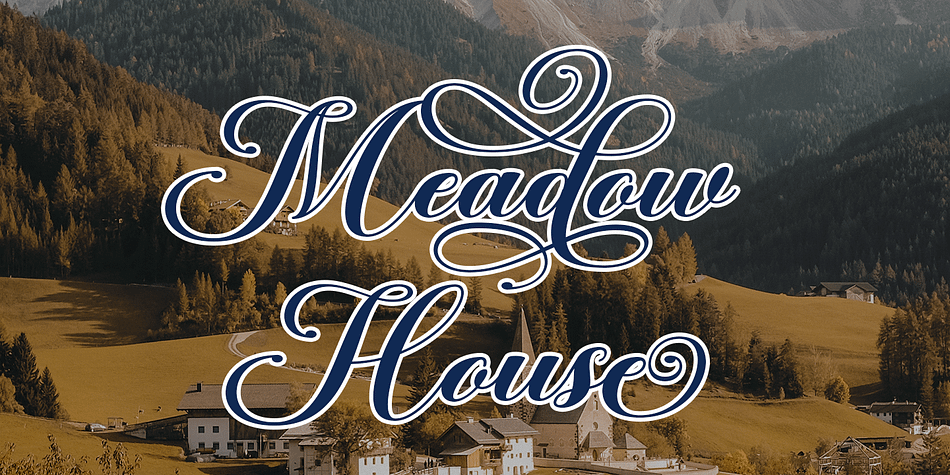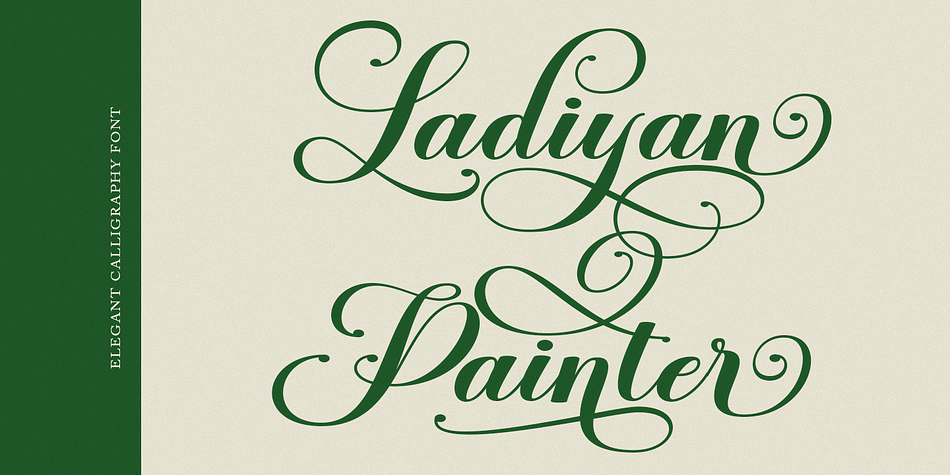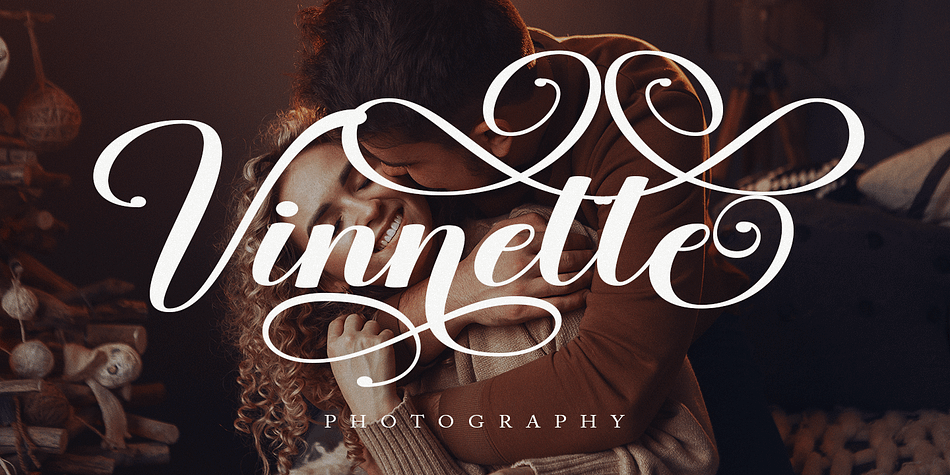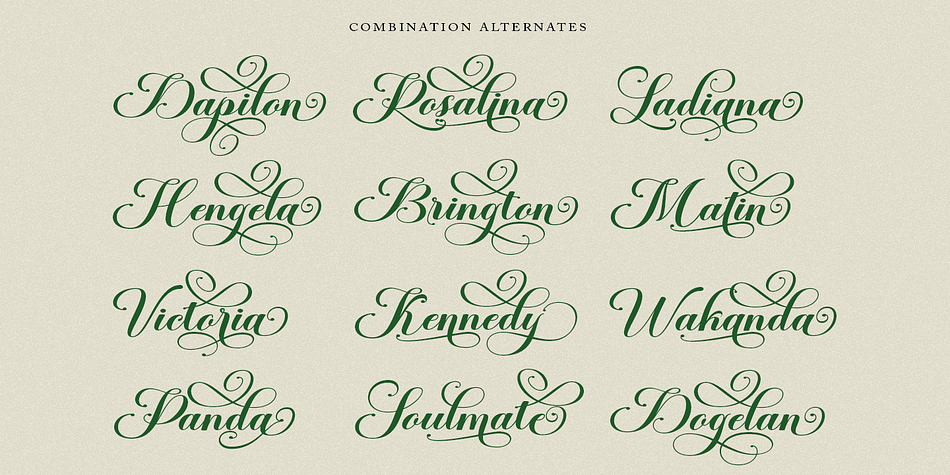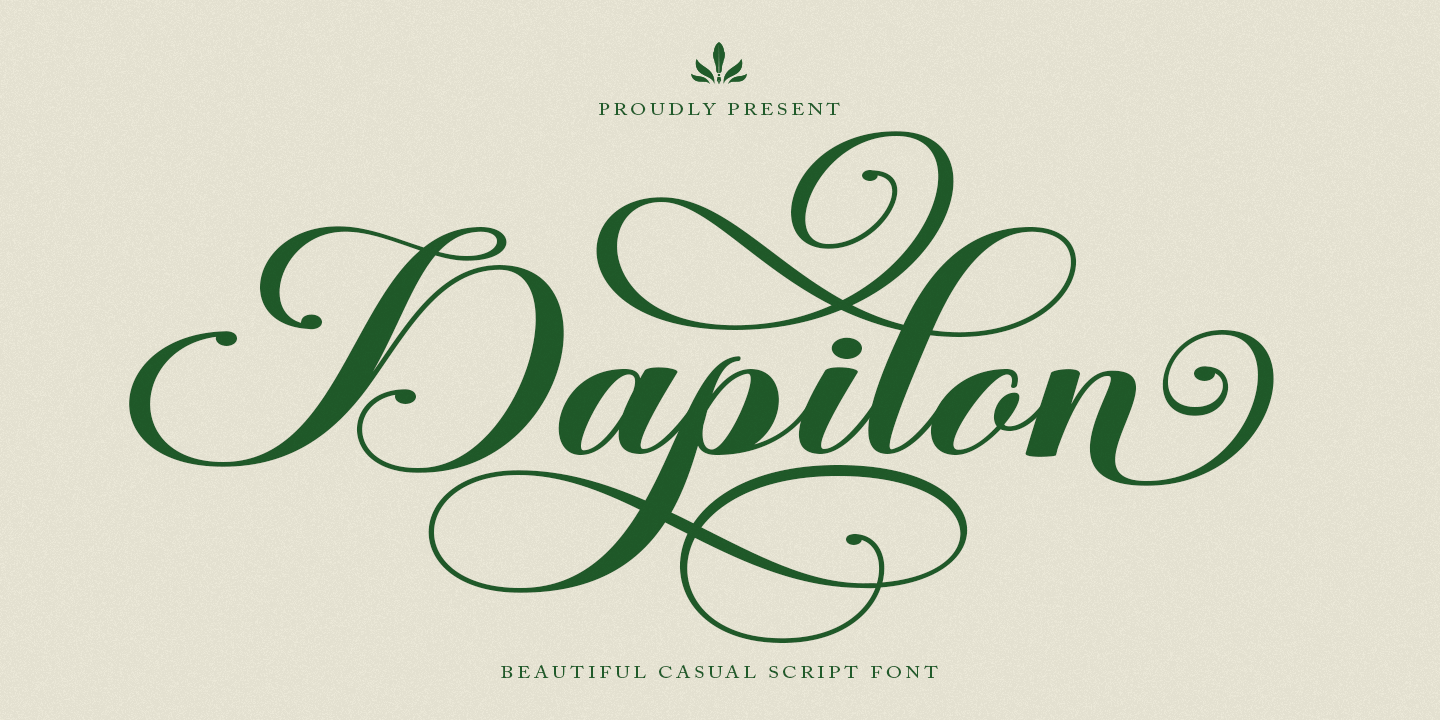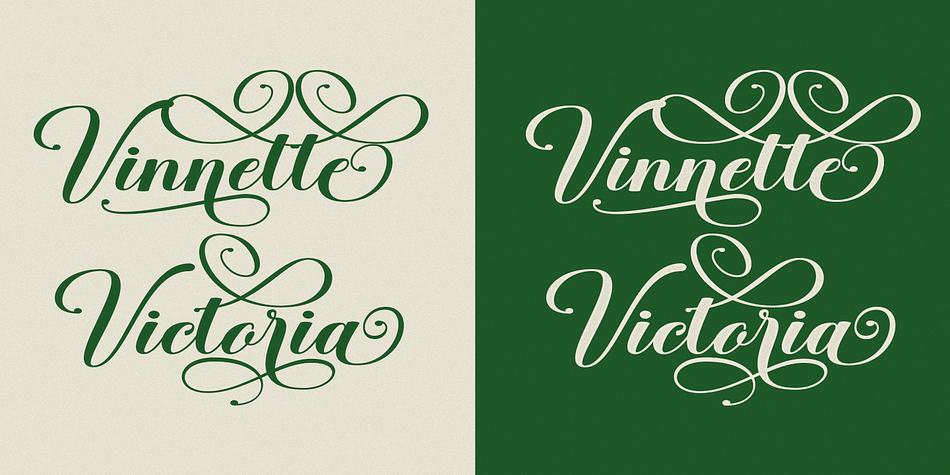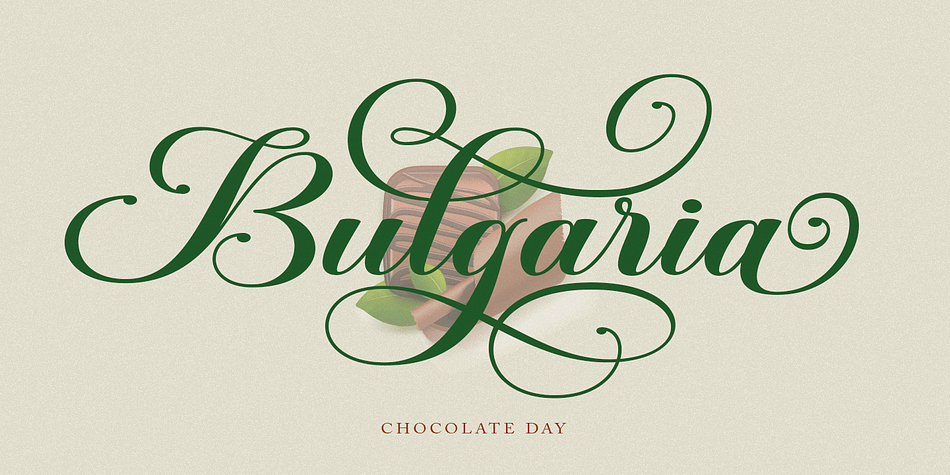
Dapilon Script
Dapilon Script is a modern calligraphy font family published by HRZ Studio.
Introducing Dapilon Modern Calligraphy Font
Dapilon Modern Calligraphy Font, made with Natural & precision, perfect for branding, websites, and editorial designs. Includes all Characters letters, multilingual support, punctuation, binding. everything can be easily accessed using software that supports OpenType. What’s include: